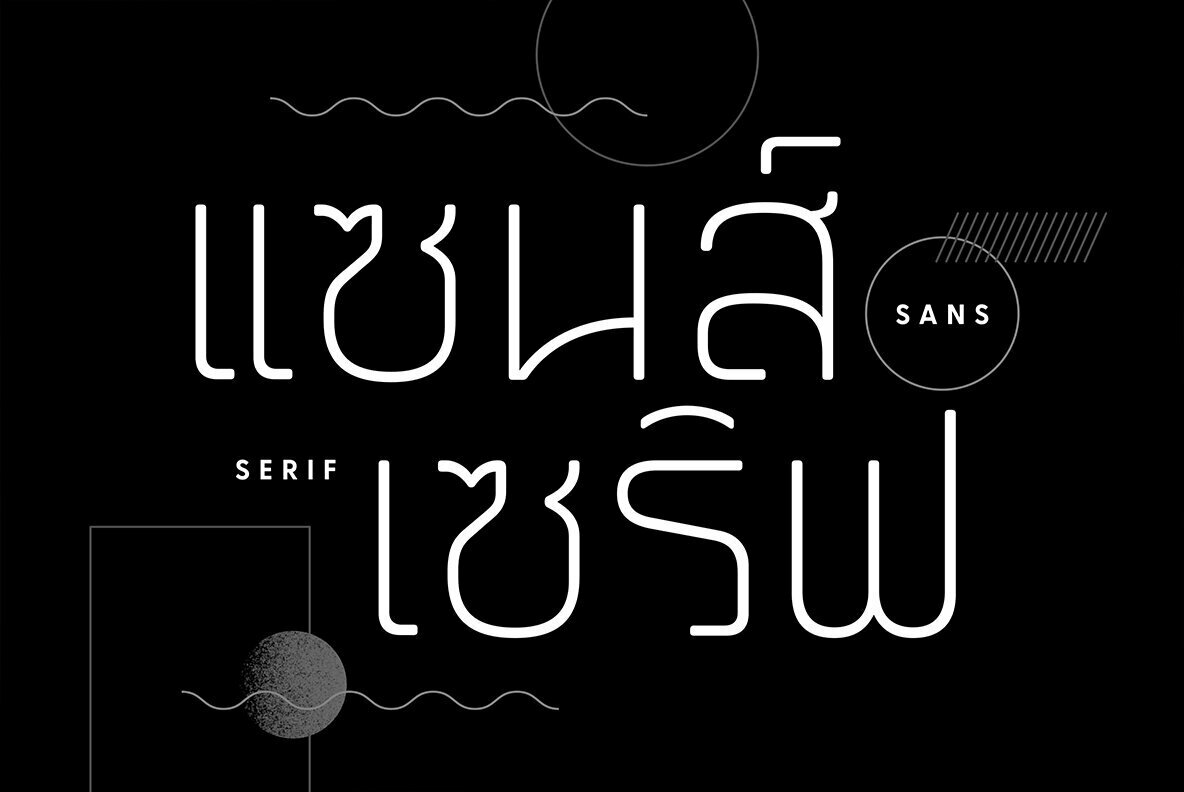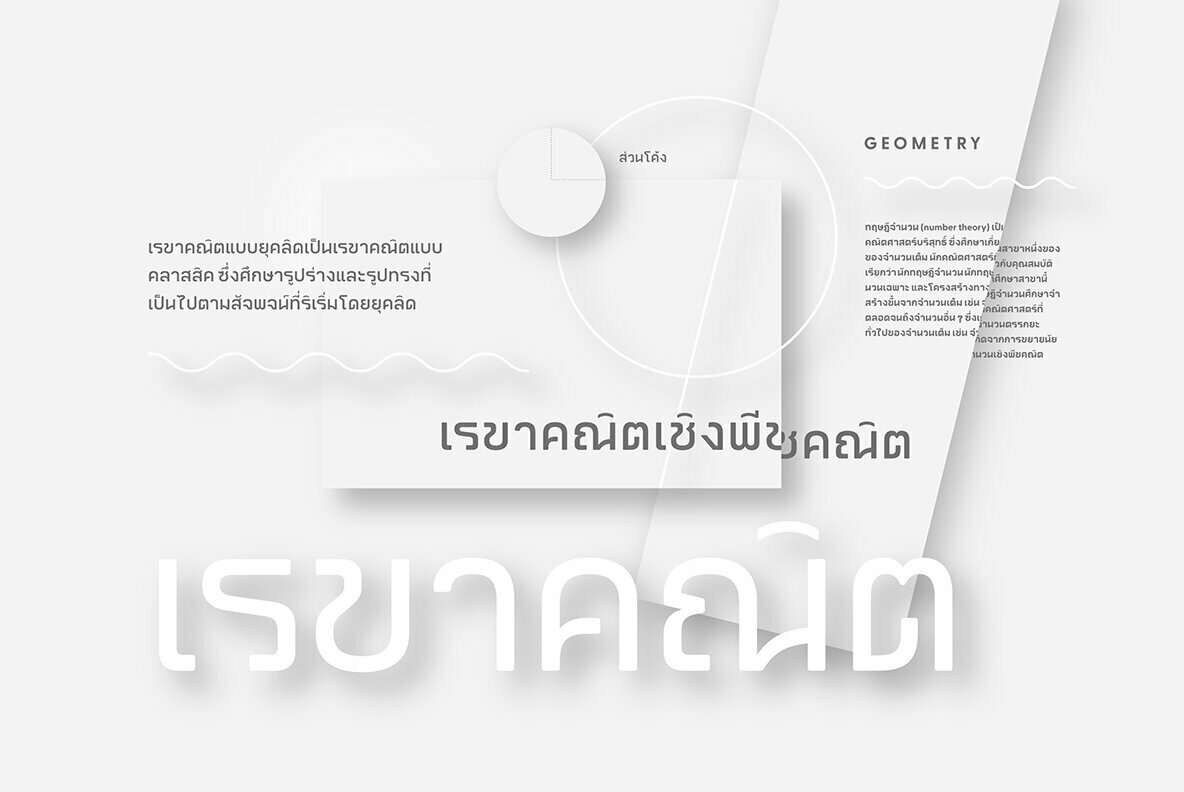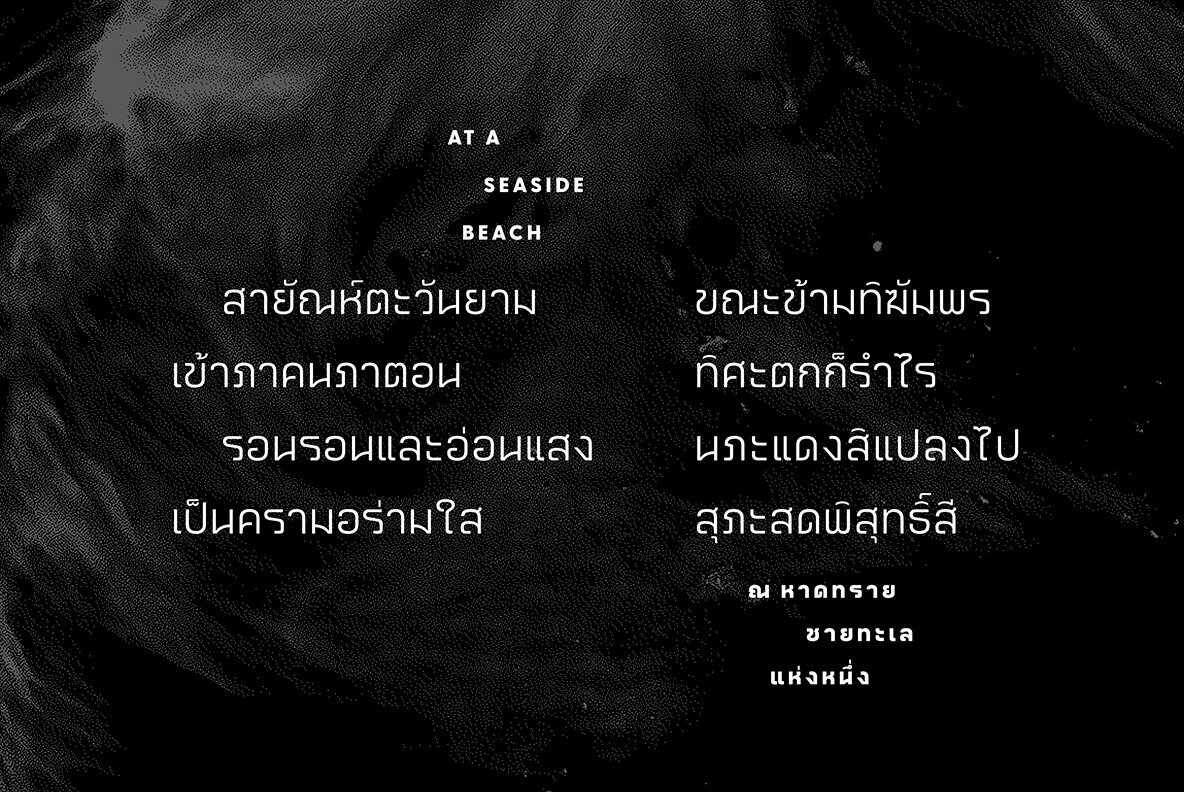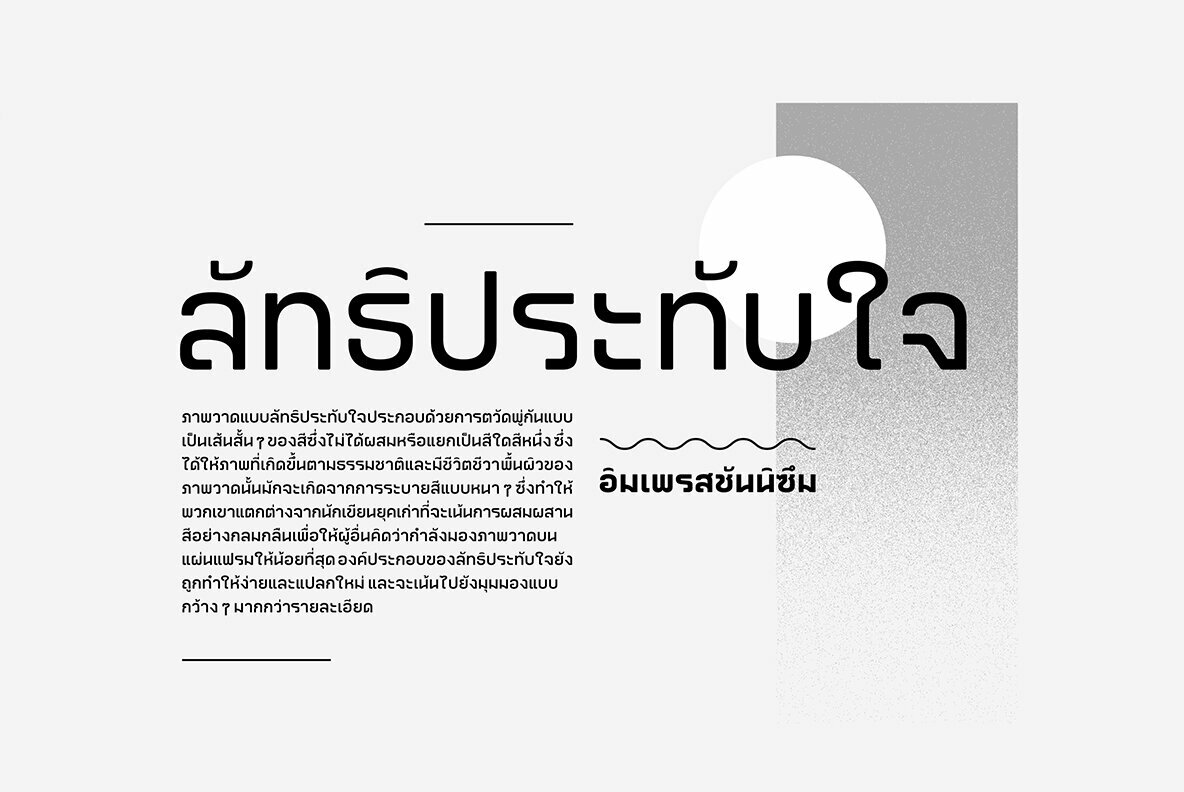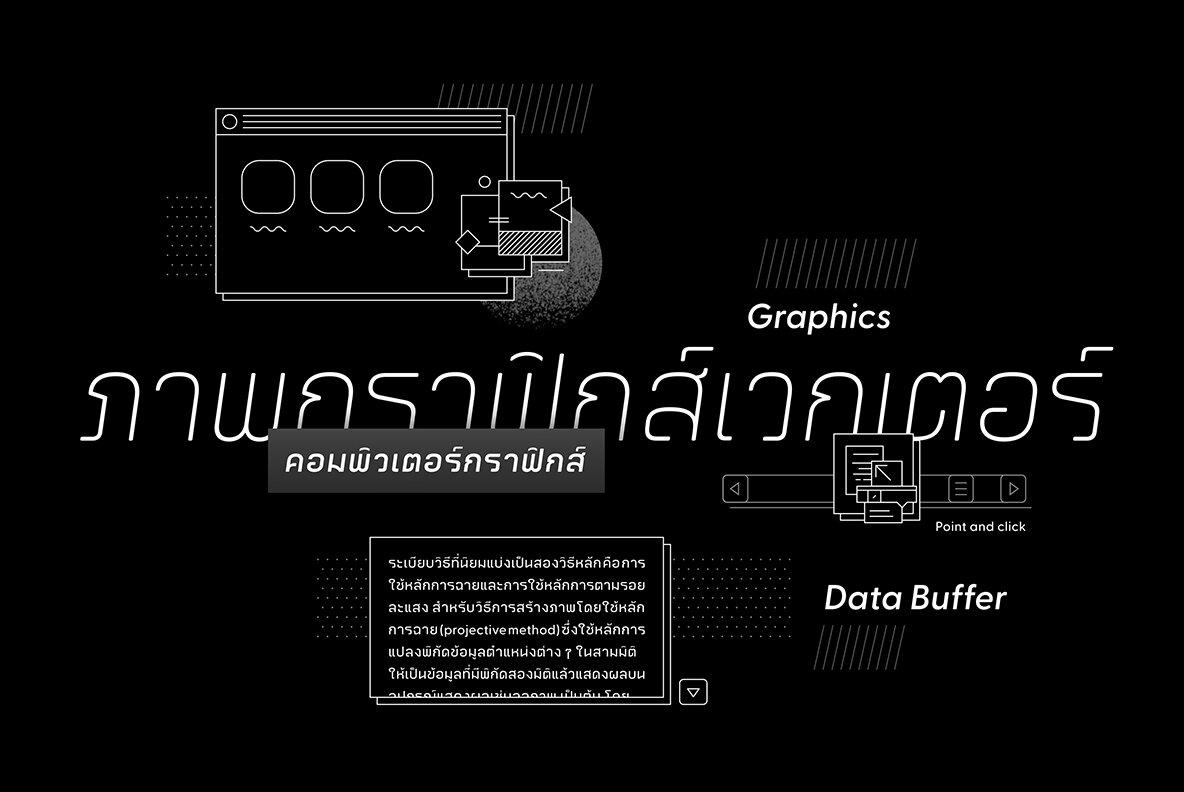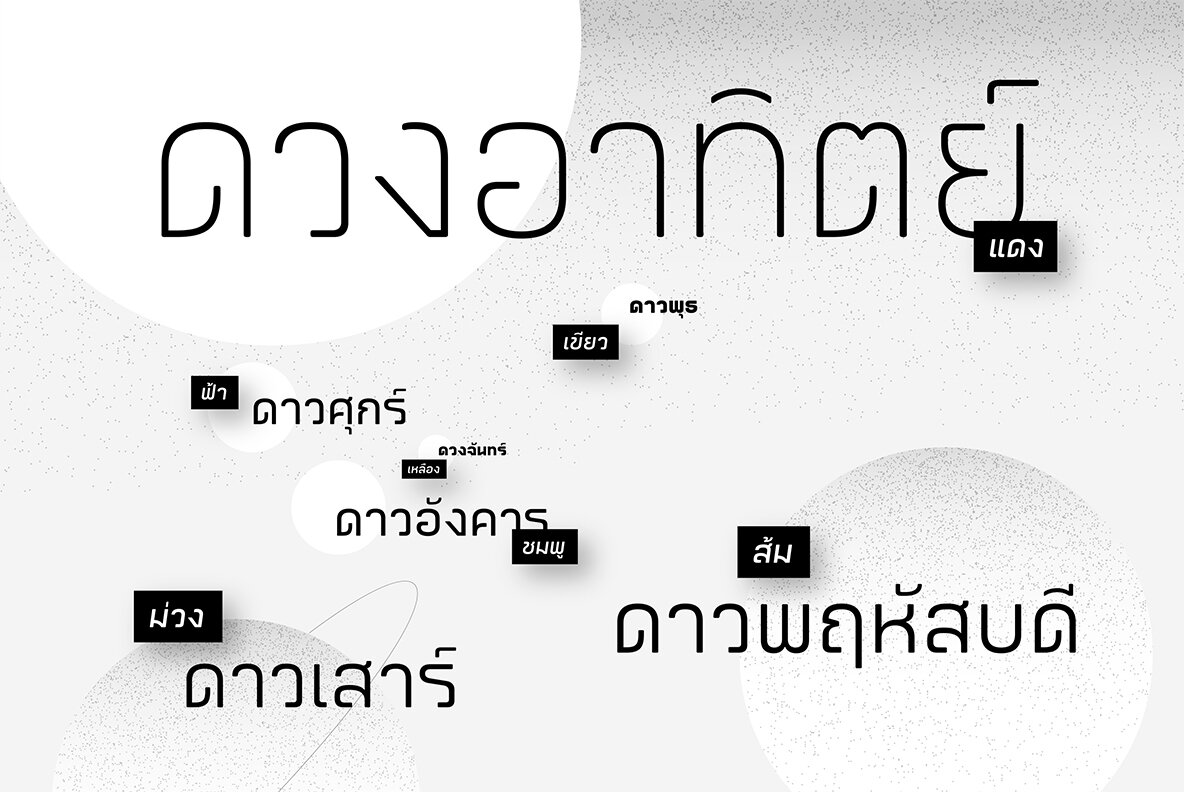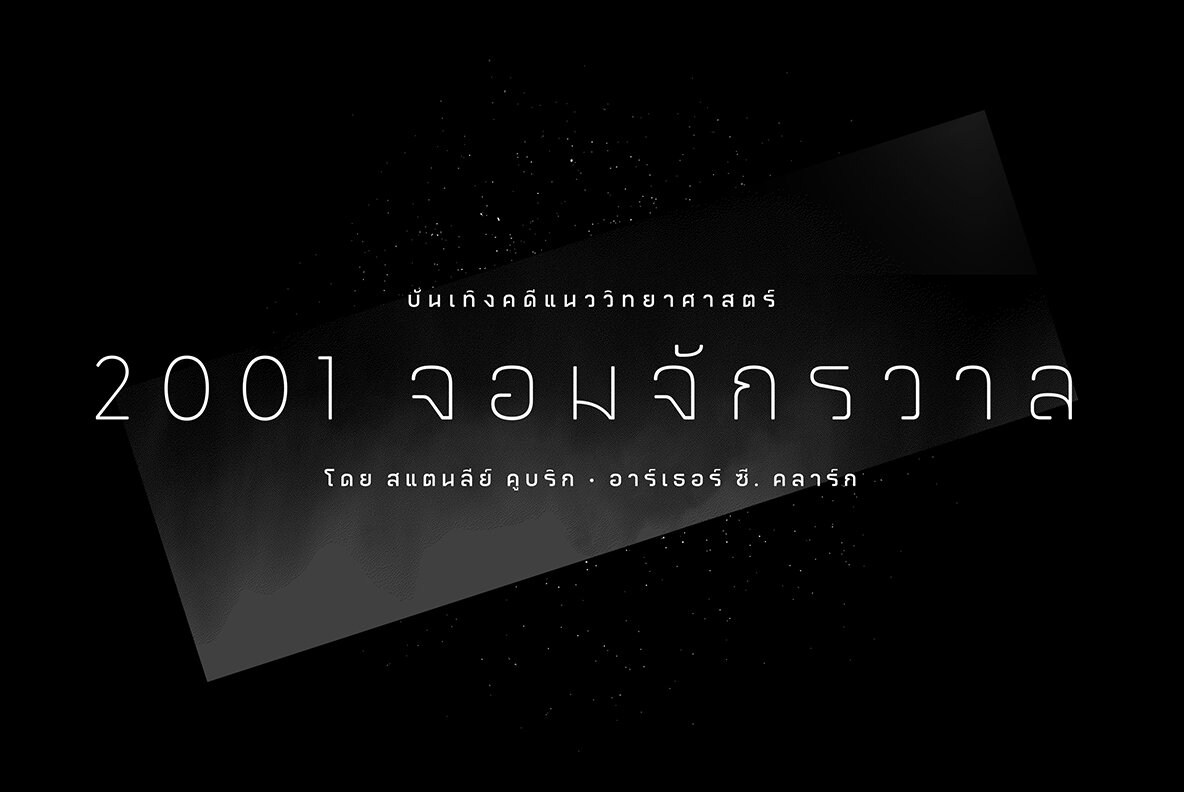
Greycliff Thai CF Font
Greycliff Thai CF adapts Greycliff’s popular soft, geometric design to the Thai script. Both Latin and Thai glyphs are included, allowing for visually cohesive multiple-script applications. Greycliff Thai CF includes nine weights, obliques, and full Thai diacritics.